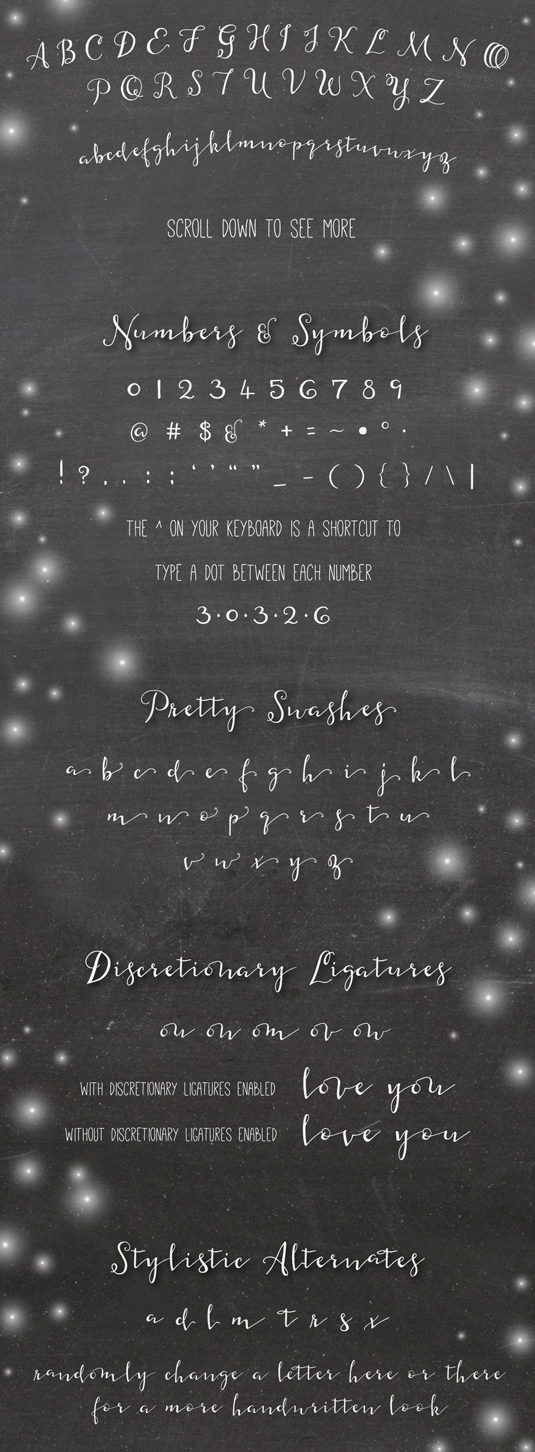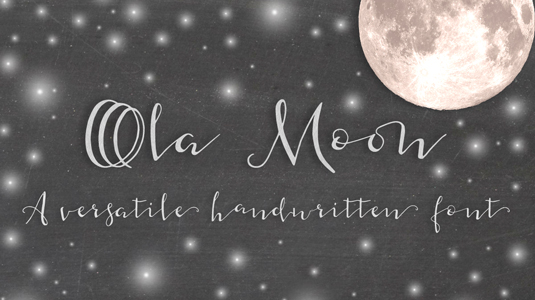
Font of the day: Ola Moon
Every day we showcase the best fonts on the web. Today it's Ola Moon by Karen Smith.
Ola Moon by Karen Smith
Kicking off this week's font of the day posts is Ola Moon, a hand-lettered, modern calligraphy script typeface, designed by Karen Smith. "I created this font with a little bit of a quirky imperfect look," she comments. "It's great for invitations, greeting cards, typographical art, logos, and all sorts of other design projects."